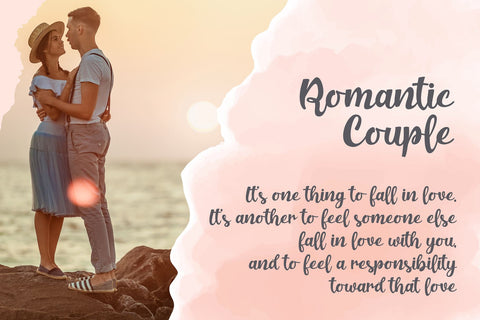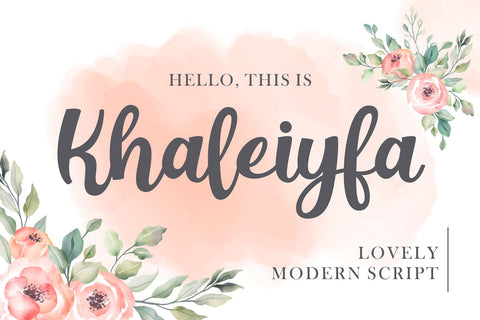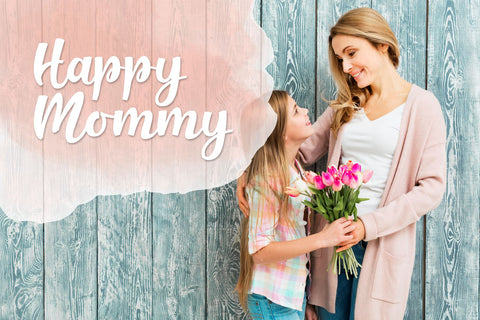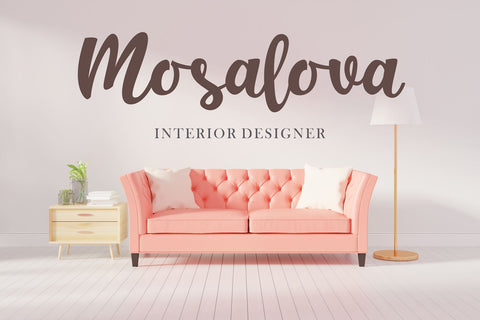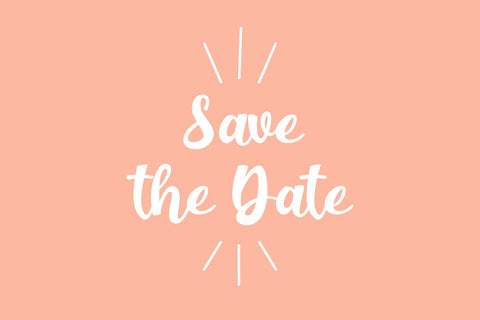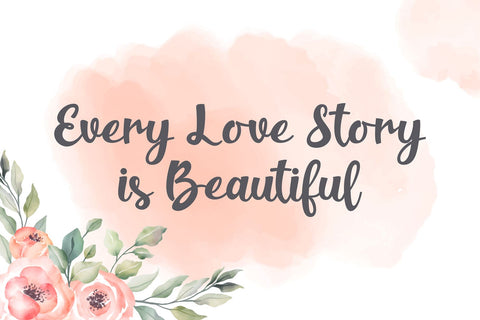
Khaleiyfa - Lovely Modern Script
Khaleiyfa is a lovely script font. It has a striking and elegant style and is perfect for creating original designs. Khaleiyfa is a really great font for a logo, clothing, wedding invitations, posters, and many others.